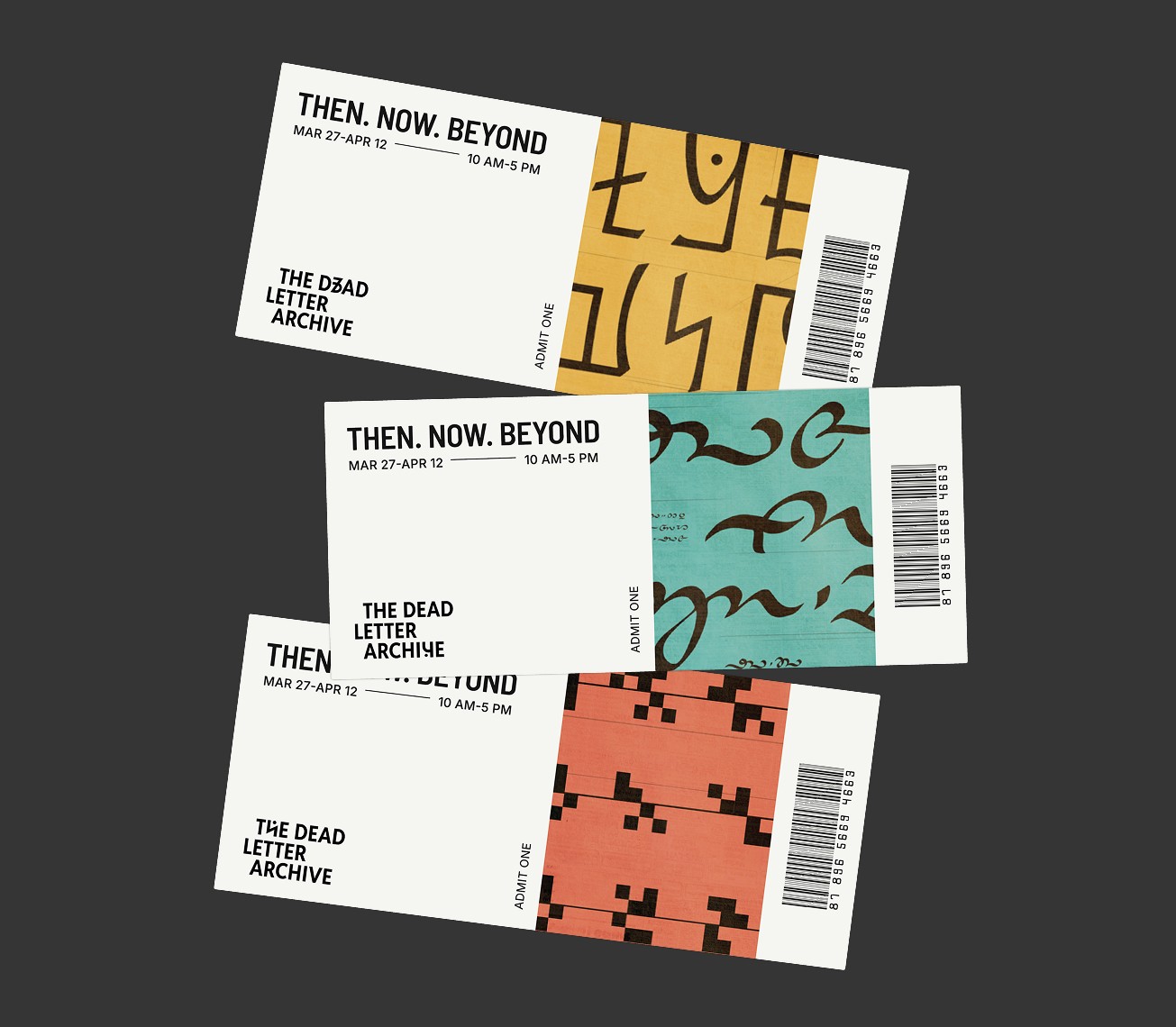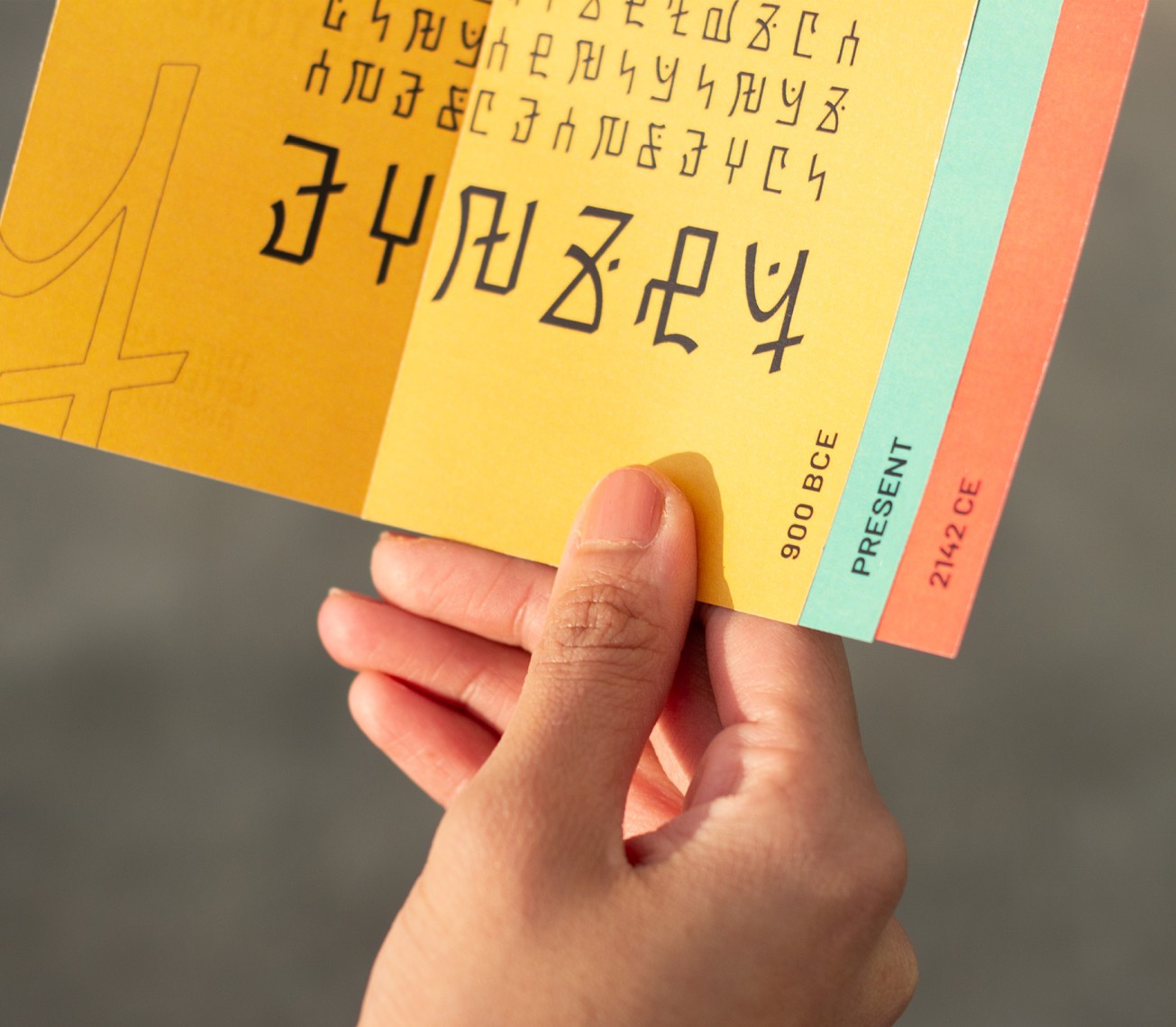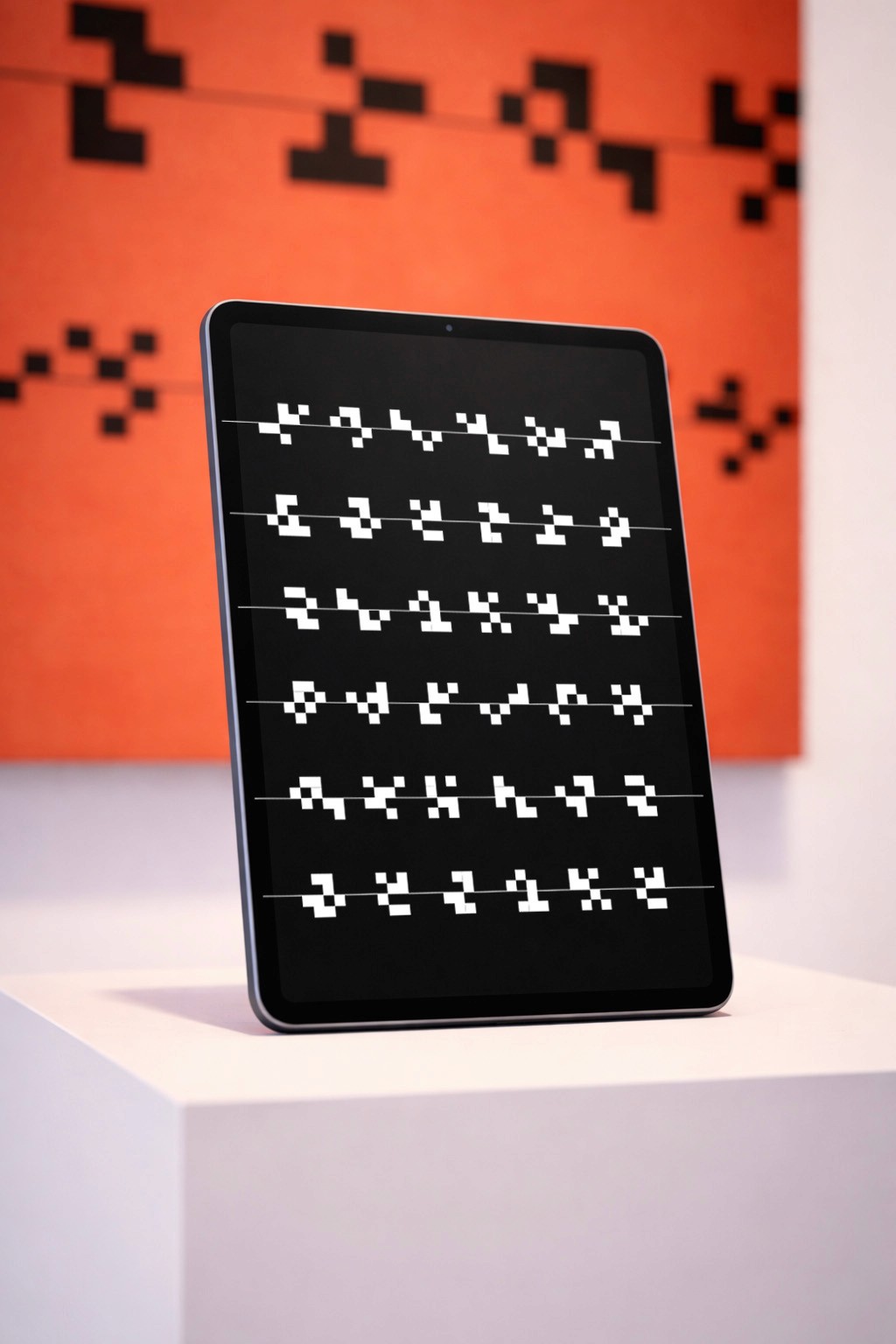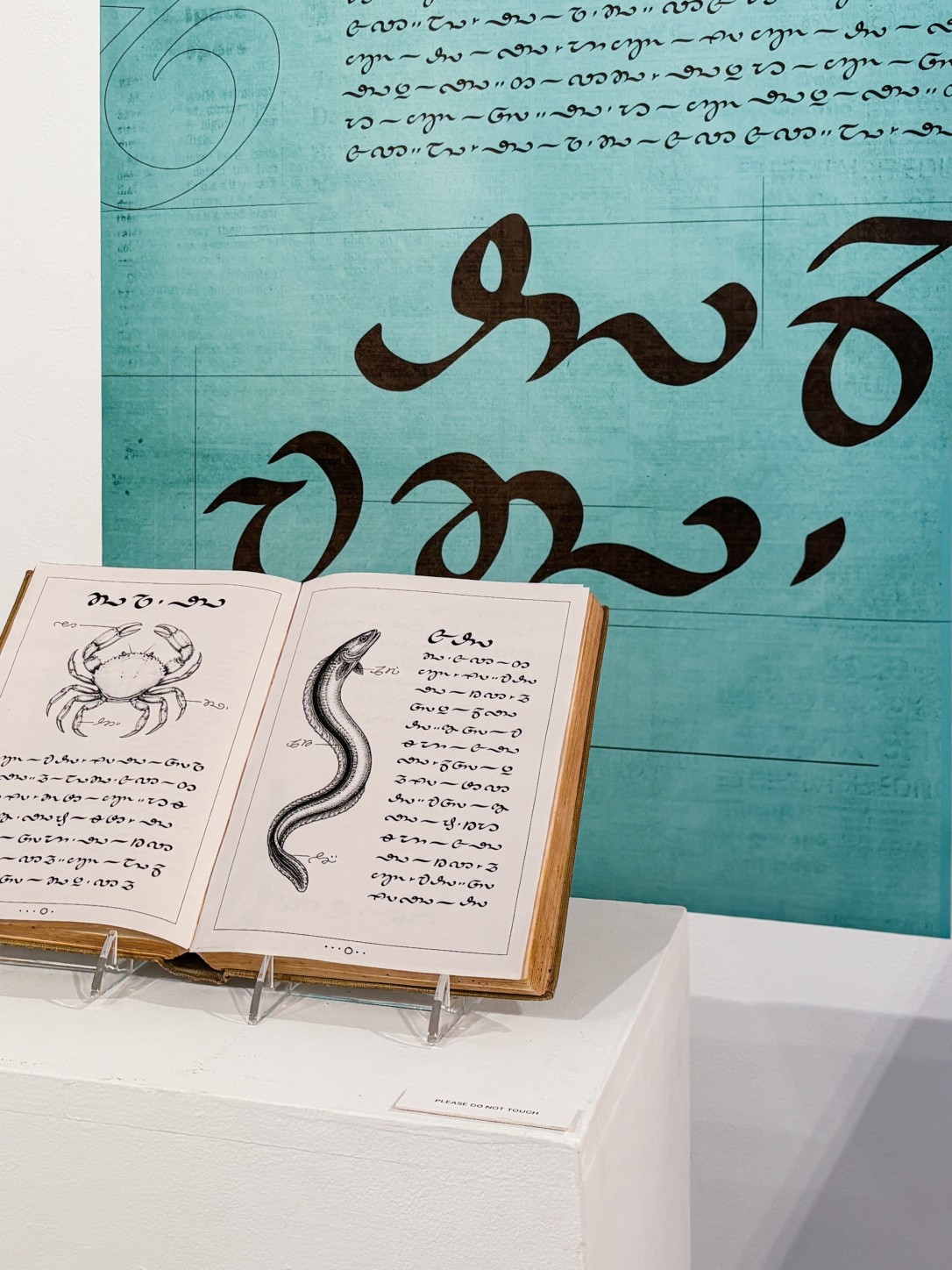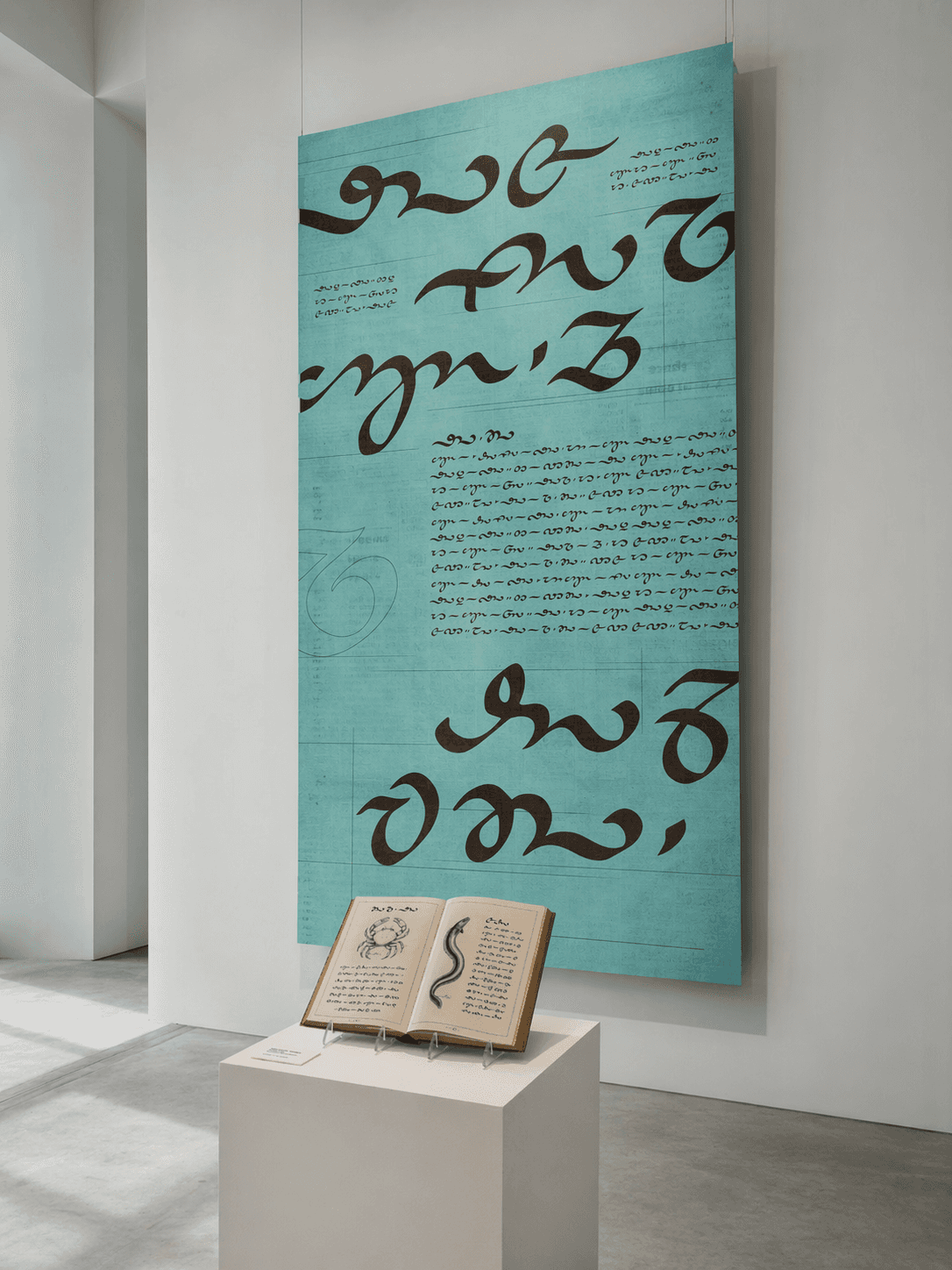
The Dead Letter Archive
Typography, Branding | graduate thesis project
The Dead Letter Archive is a speculative, time-agnostic archive of asemic and imagined writing systems. It catalogs, preserves and exhibits scripts that cannot be read, making no effort to decipher or translate them.
As part of my thesis at MICA, I designed three original asemic scripts, one each from the past, present, and future, built around a specific world and context, letting the writing system emerge naturally from it. Spanning visual identity system, typography, and exhibition design, the project explores what makes a writing system feel real.
Thalassan
A living script usedby an isolated island community with no recorded contact with the outside world. Fluid and wave- derived, the script continues to evolve with the community.
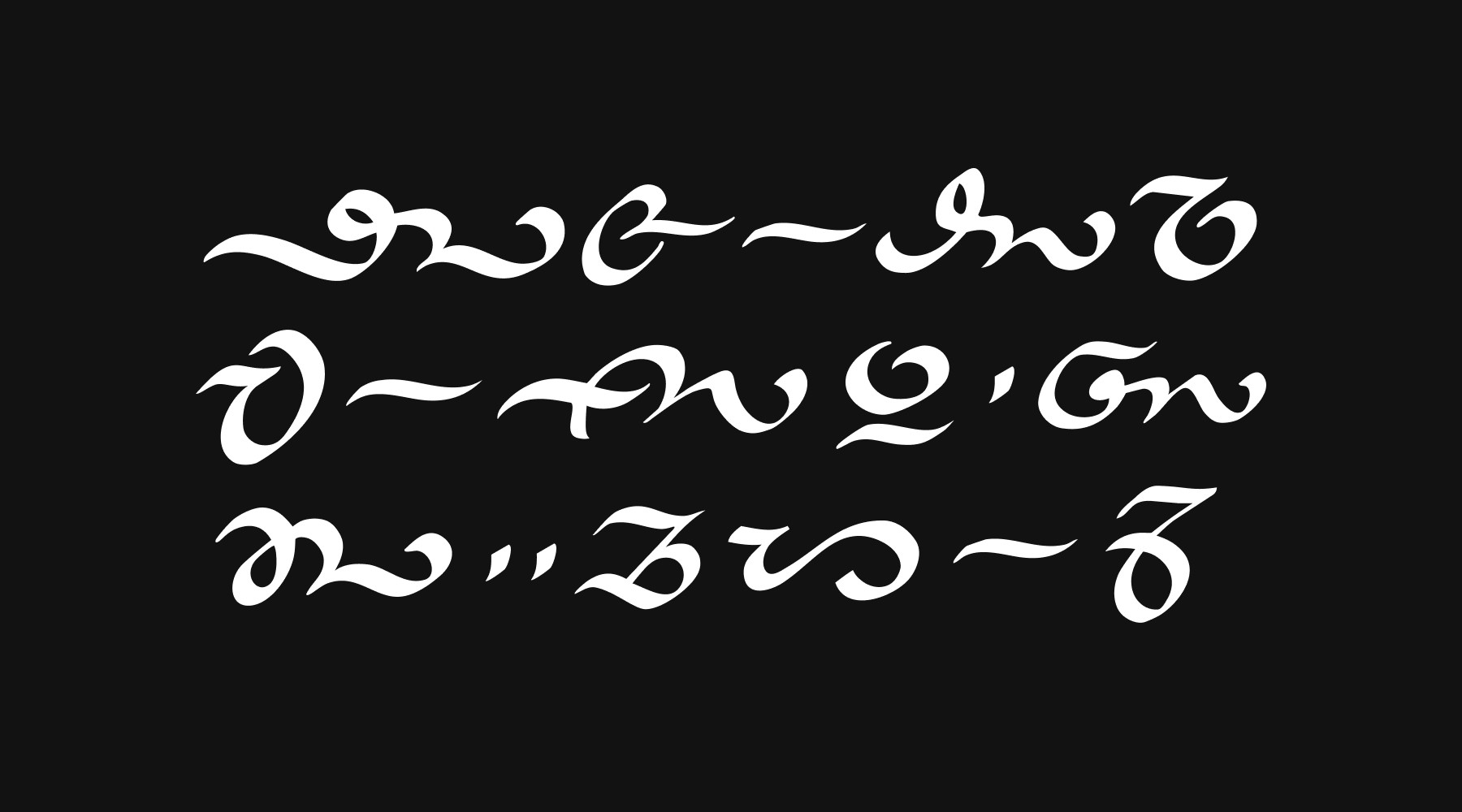
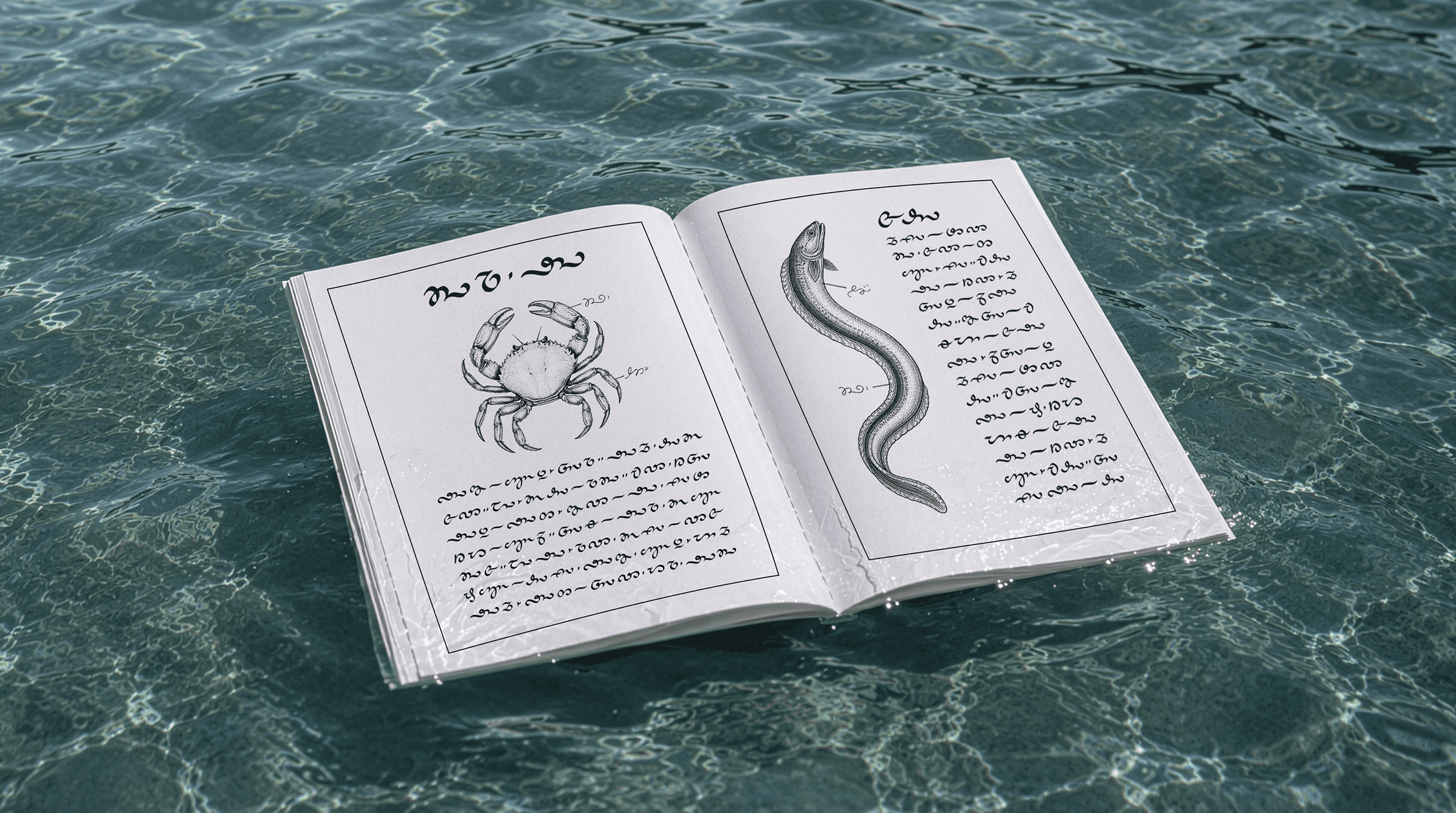Velloric
A Bronze Age city script, likely used for administration and territorial record. 32 clay inscriptions were excavated in 1979, in South Anatolia (Modern day Turkey). The script has geometric, enclosed forms impressed into clay with a stylus.
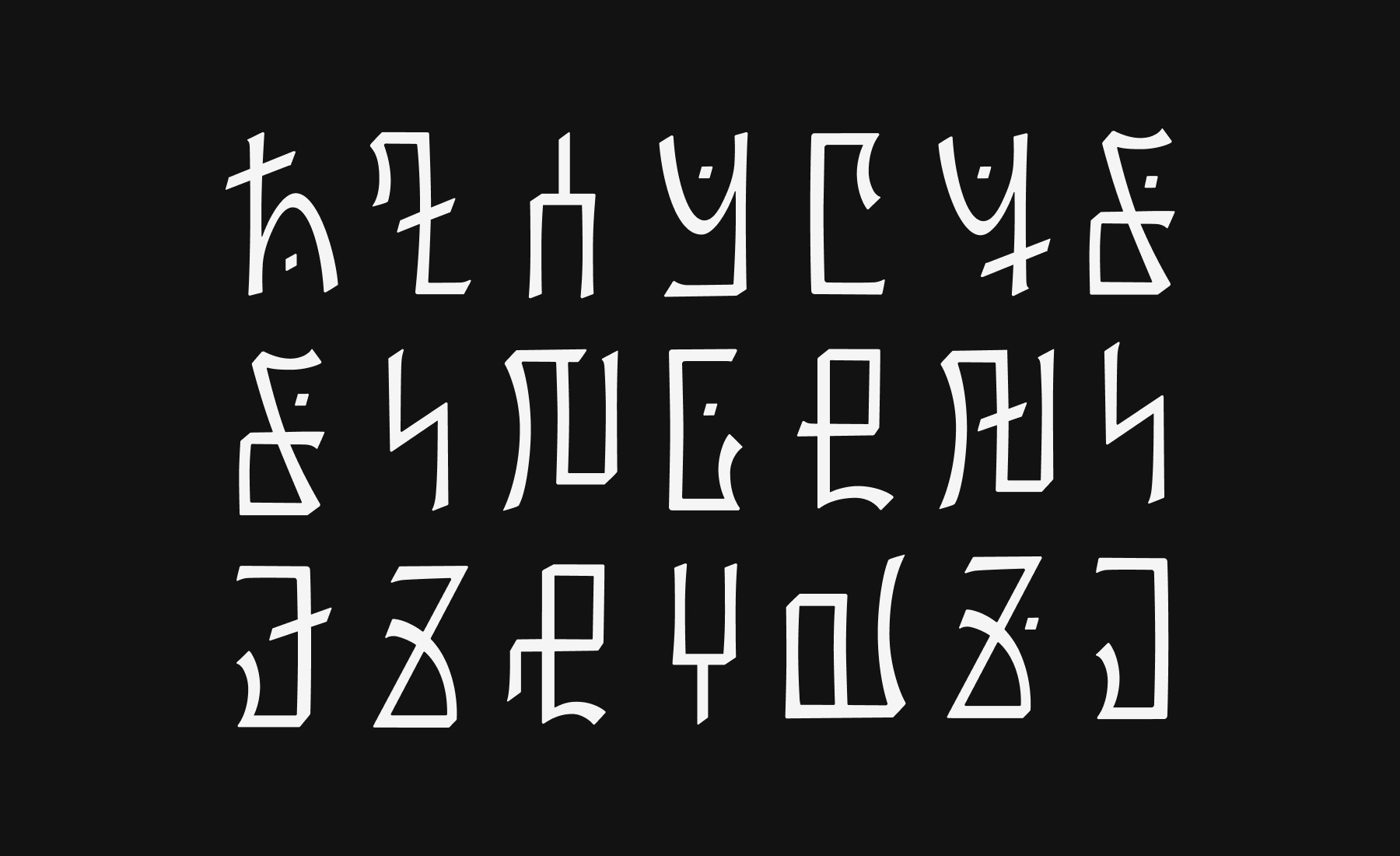
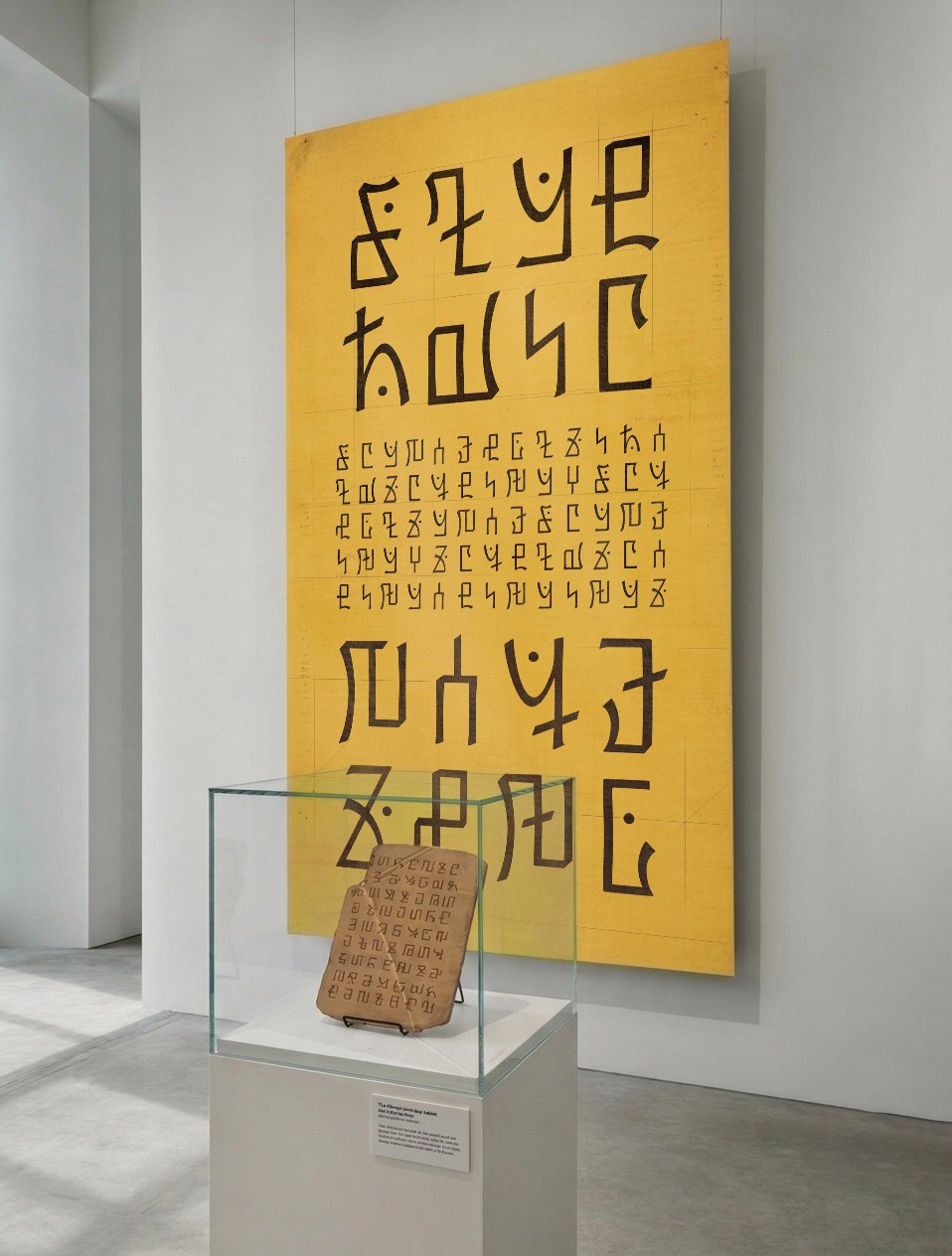Helix
A modular script developed on Ares, the first colony on Mars. Built from pixel-grid primitives designed for both digital displays and physical surfaces. Each character straddles a baseline — meaning carried in the distribution of form above and below the line.